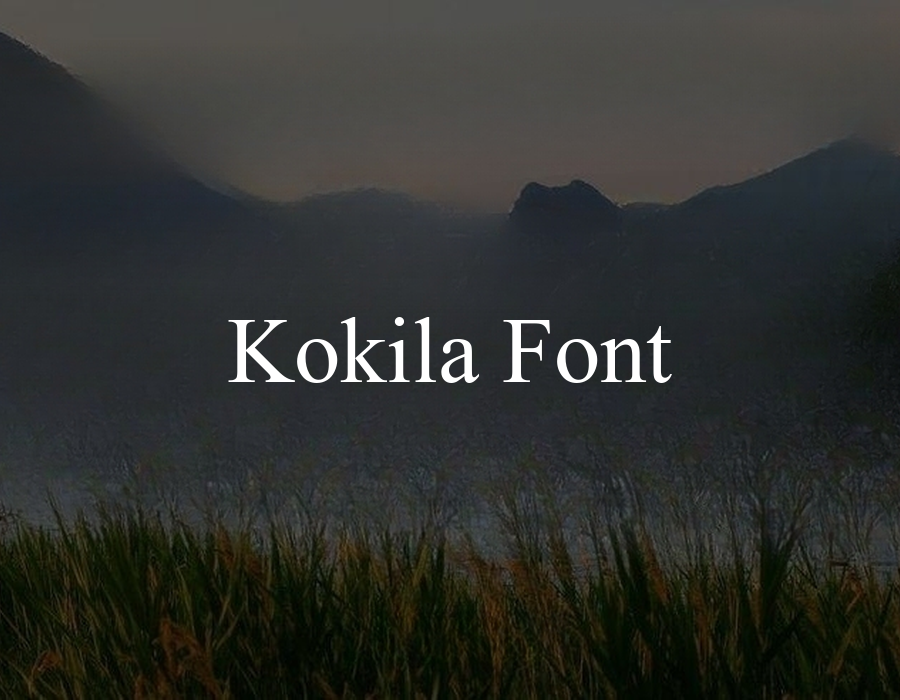
About Kokila Font
Kokila is a standard, open-source Devanagari typeface known for its clear, traditional letterforms and high readability. Designed for use in Indian languages like Hindi, Marathi, and Nepali, it features a monolinear style with balanced proportions that perform well in both print and on-screen text. Along with similar fonts like "Lohit Devanagari," it has been a fundamental part of the Indian digital typography landscape, often used in government portals, textbooks, and open-source software to ensure accessible and authentic text rendering.